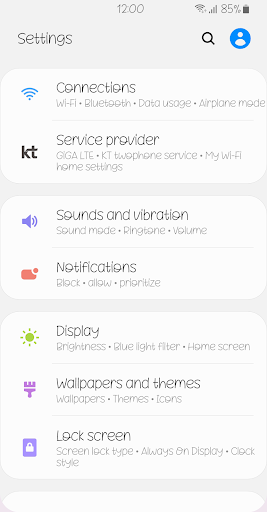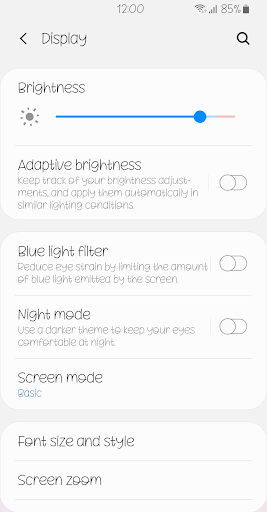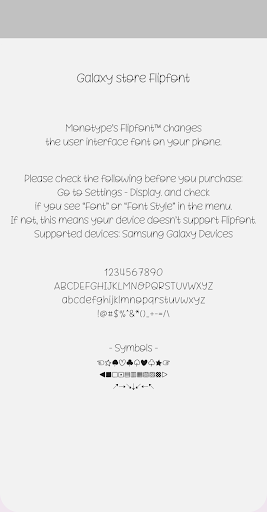
Nm OneFineDay
Nm OneFineDay is a lovely and cute font and has good readability. Customize your phone with this. Please try this font and leave your feedback.